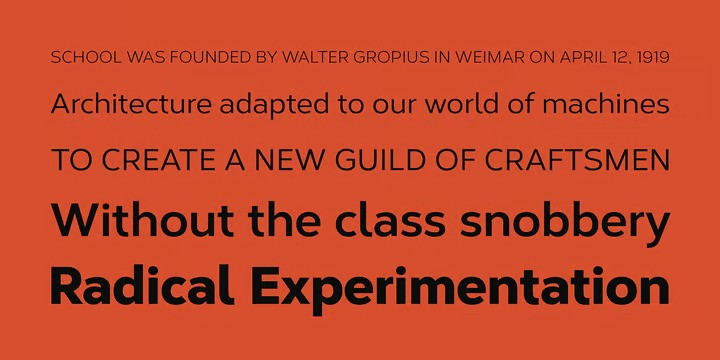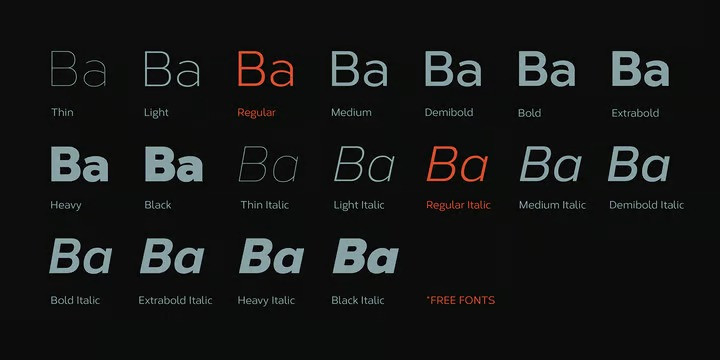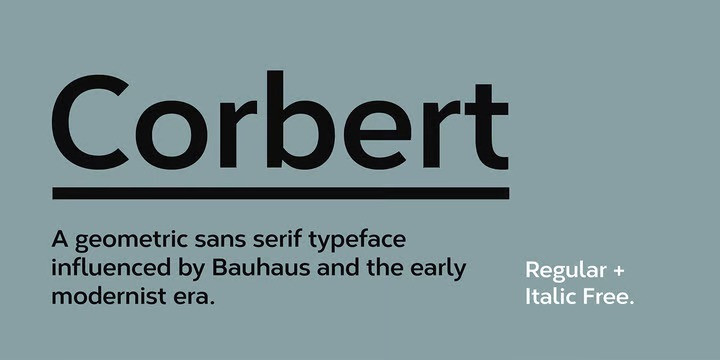
Corbert Font Family
Corbert Sans Serif Font is a sans serif font family with multiple stylistic sets and variable weights. A geometric sans serif typeface influenced by Bauhaus and the early modernist era. Precise shapes are optically adjusted to create a clear, natural typeface with excellent legibility. Corbert is a regular, self-evident design that works well across a wide range of applications.
Details include nine weights with matching italics and over 540 characters per style. Opentype features consist of five variations of numerals, including inferiors, superiors, fractions, alternative lowercase a, e and g, and language support covering Western, South, and Central Europe.